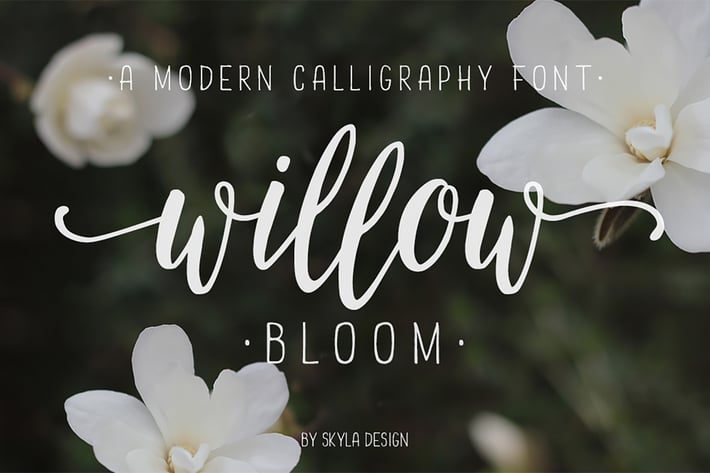
Willow Bloom modern calligraphy font
Willow Bloom is a beautiful, modern calligraphy font with a dancing baseline. This hand-lettered script will look gorgeous on all your designs, wedding invites, branding materials, business cards, and quotes.
WHAT'S INCLUDED Willow Bloom contains standard characters, lowercase, uppercase, numbers, punctuation, ligatures and international characters. This font also comes with two sets of alternate lowercase characters with initial and end swashes. You will receive the OTF and TTF files.